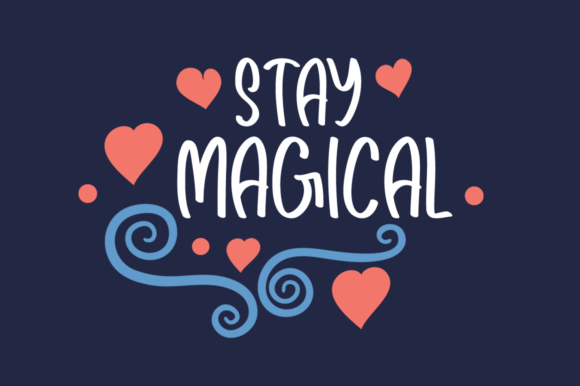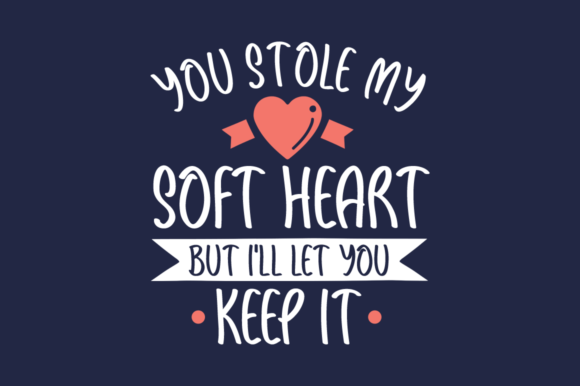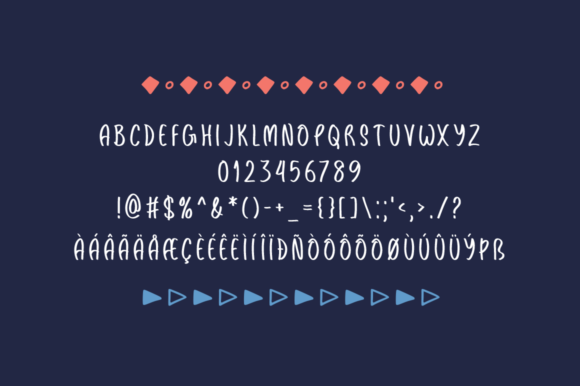
Introduction to Sebqor Font
Have you ever stared at a blank canvas, desperate for the perfect font to bring your creative project to life? You scroll through endless options, but nothing seems to capture the whimsy and magic you envision. That’s where Sebqor Font comes in – a delightful script that adds a touch of wonder to any design.
As a designer, you know how crucial the right font can be in making your project stand out. With Sebqor Font, you can elevate your designs to new heights, whether you’re working on a personal project or a client’s high-profile campaign. This enchanting script is more than just a design resource – it’s a key to unlocking your creativity and bringing your ideas to life.
Key Features of Sebqor Font
- High-quality design resource ideal for creative projects requiring a unique and modern look.
- Includes a range of characters, including uppercase and lowercase letters, numbers, and special symbols, making it a comprehensive design resource.
- High-resolution design (scalable to 1000+ dpi) ensures crisp and clear typography, perfect for print and digital applications.
- Unique characteristics, such as distinctive letterforms and stylish flourishes, set the Sebqor Font apart from other free fonts.
Honest Review: Sebqor Font
As a designer, I’m always on the lookout for new and exciting design resources to enhance my creative projects. The Sebqor Font is one such discovery that has caught my attention.
What works well is its versatility – it can be used for a wide range of design applications, from digital products to print materials. The font’s modern and elegant design makes it a great addition to any project. ✨ The transparent background option is also a plus, allowing for seamless integration with other design elements.
- Modern and elegant design
- High-quality font
However, I did notice that the font may not be suitable for all types of projects. ⚠️ For example, it may not be the best choice for projects that require a bold or playful font style. Additionally, the font’s compatibility with older software may be limited.
Overall, I’m impressed with the Sebqor Font and would definitely recommend it to designers looking for a high-quality font for their creative projects. Just be aware of its limitations, and you’ll be good to go!
The Sebqor Font is a versatile and high-quality design resource perfect for any creative project. With its unique style and transparent background, it can elevate your designs and make them stand out.
Tips for Getting the Most Out of Sebqor Font
To get the most out of the Sebqor Font, use it in combination with other design elements to create a cohesive and visually appealing design. Experiment with different font sizes, colors, and arrangements to find the perfect balance.
The Sebqor Font is perfect for a variety of use cases, including:
- Web design projects
- Print design projects